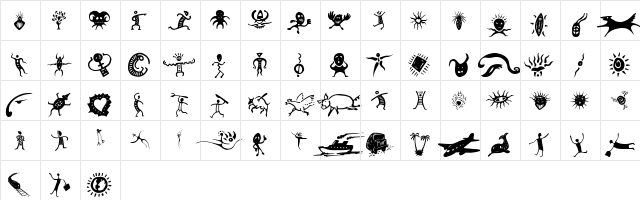
Rhodkhil Piqnik Regular
Design Context for Rhodkhil Piqnik Typeface
Rhodkhil Piqnik is a composed and adaptable typeface that performs quietly and consistently across a wide range of design contexts.